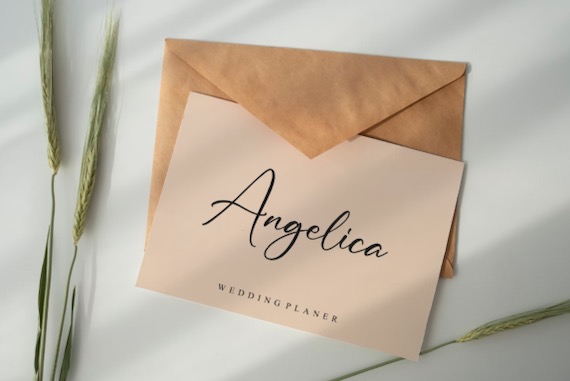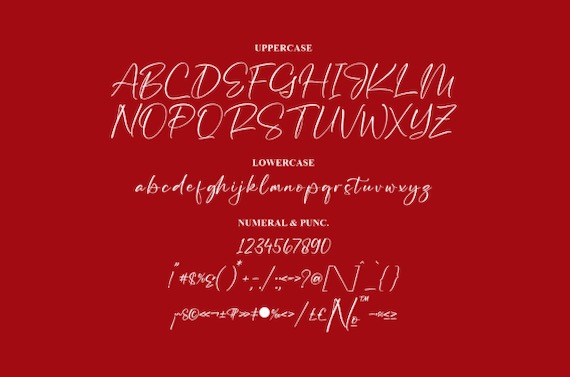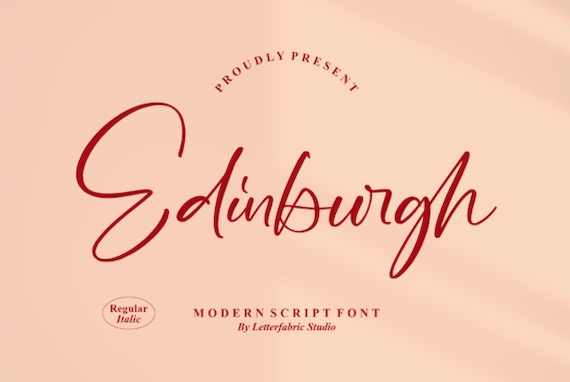
Edinburgh is a modern handwritten script font that was created and shared by Letterfabric. It’s very perfect for a vast of design projects such as packaging products, invitation cards, flyers, mockups, event posters, and anything else that requires high-quality vibes. It has a beautiful and balanced character, that fits well with the large design pool. Edinburgh font is PUA encoded which means you can access all of the glyphs and swashes with ease.
Edinburgh Handwritten Script Font